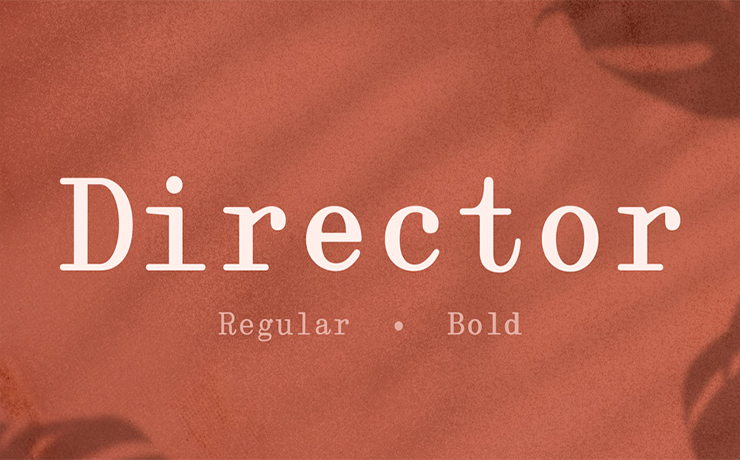
Director Font is a gorgeous, versatile monospaced serif typeface that has a clean but unique and fun typeface that will look great on any website you want to add a little personality to.
This amazing typeface was created by French designer Ange Degheest is engraver, typographer, and type designer.
This beautiful font is specially made by the designer for the developers. As such, it works beautifully for coding reading. All its characters maintain a clean structure with a decent look.
Another best thing about this great font is that you can use it for other purposes like display tasks and printing tasks. And with that, you can create better font pairs with other serif fonts.
One thing you must note when applying is that all the characters are professionally crafted.
With this fine quality font, you can create long text paragraphs, unique emblems, posters, headlines, web development, app development, game titlings, movie posters, and many more.
This font is provided in two different styles including Regular and Bold which possess Open type file format. So, you can use it in different areas of a project according to your need.